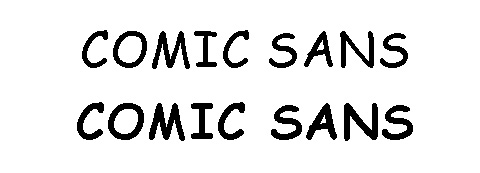
After more than a year I continue the successful series of alternative fonts of classics. A generally hated typeface is Comic Sans, mostly because of it's misuse. There are even hate/love blogs about this font (http://bancomicsans.com/) and they try to raise money for a documentary. The font was designed Vincent Connare in 1995 and most designers wouldn't touch the font in a professional work, but with sometimes we need something similar.
Top Alternatives
Comic Jens Not only is Comic Jens from Jens Kutilek a high quality opentype font, with ligatures, context sensitive letters and symbols, but it's also free. (www.kutilek.de/download/comic-jens.zip)
Joker Joker is a typeface designed by Jerry Inscoe and it's based on his handwriting. A great font with alternative letters and additional letterforms (www.handselecta.com)
Runners up
Jump (www.linotype.com)
FF Layout (www.fontshop.com)
FF Soupbone (www.fontshop.com)
MVB Calliope (www.mvbfonts.com)
Burbank (www.houseind.com)